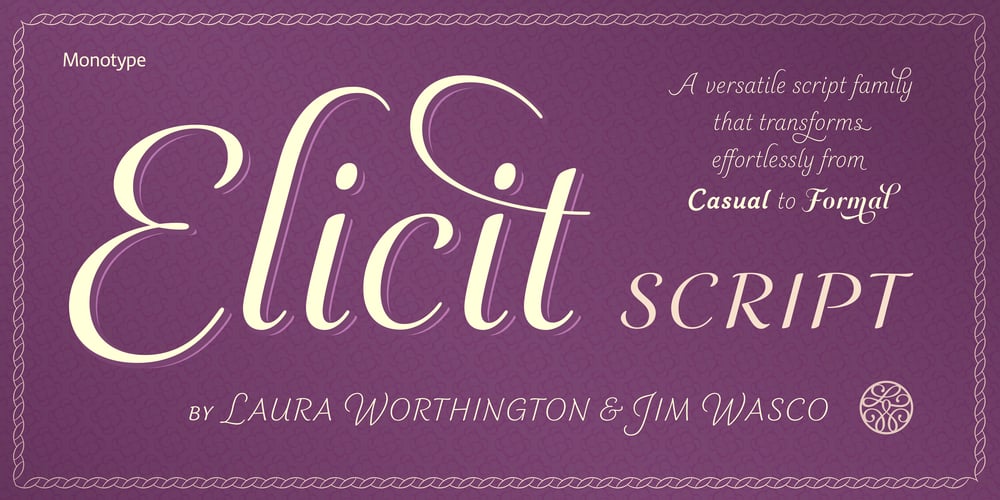
Elicit Script
Elicit Script font
Elicit Script Font Family was designed by Jim Wasco, Laura Worthington and published by Monotype. Elicit Script contains 15 styles and family package options. Elicit Script is a hybrid script family, that can be as casual or formal as the occasion demands. Created by Laura Worthington and Jim Wasco, the design is based on pointed pen Spencerian Script handwriting. “It’s like one of those German italics from the early 20th century, that have beautiful shapes that hold their own,” says Wasco. Elicit Script spans five weights, from Extra Light to Bold, and three styles – Formal, Normal and Casual. This makes it an incredibly versatile script design, easily paired with other typefaces and able to be dressed up or down, depending on what it’s used for. The monoline Casual style offers a more relaxed tone of voice, while Formal sits at the more decorative end of the spectrum. Designers can keep things straightforward, tidy and practical with the typeface’s simple caps, or add in swash caps if they need more exuberance and expression. Generous spacing means Elicit Script works well at smaller sizes as well. Elicit Script Variable Set is a single font file that features two axes: Weight and Contrast. The Weight axis has instances from Extra Light to Bold. The Contrast axis has instances from Casual (low contrast) to Formal (high contrast).